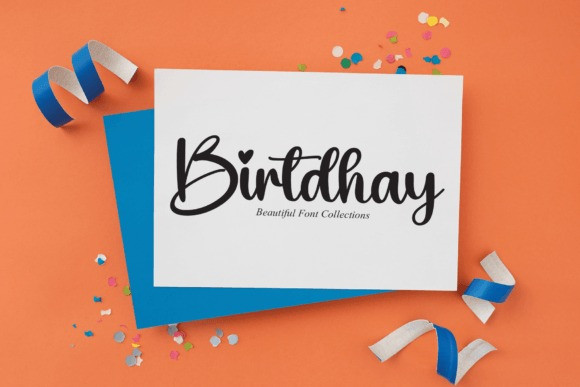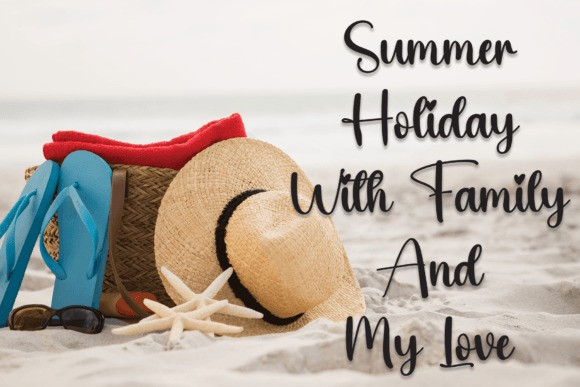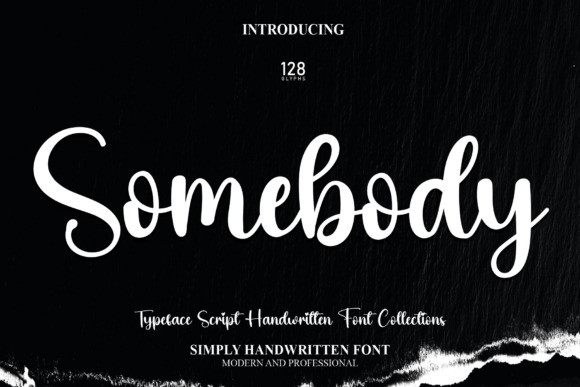
Somebody Script Font
Somebody Script Font is an elegant and feminine typeface suitable for all kinds of headlines and decorative purposes. It will be a perfect choice for all kinds of wedding stationery, invitations, flower shops, packaging, social media posts, and any spring-inspired designs!